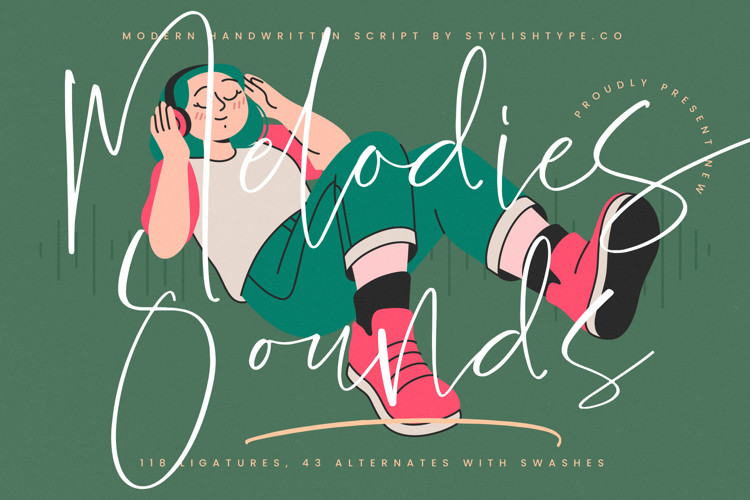
Melodies Sounds - Modern Handwritten Script
Melodies Sounds is a modern handwritten script that blends fluid elegance with a casual, authentic handwritten charm. Designed with smooth strokes, expressive ligatures, and versatile alternates, this font is ideal for projects that need to feel artistic, stylish, and approachable. Featuring 118 ligatures and 43 alternates with swashes, Melodies Sounds gives designers the creative flexibility to craft and dynamic lettering.
This typeface is excellent for branding. Perfect for logos, creative agencies, lifestyle products, music merchandise, and monograms, Melodies Sounds communicates uniqueness and style. Its handwritten quality ensures that branding projects look authentic and engaging, ideal for modern and creative industries.
In editorial and publishing, Melodies Sounds adds a fresh and contemporary voice. Magazines, book covers, music posters, and event flyers benefit from its rhythmic flow and artistic edge. It creates editorial layouts that are visually striking yet readable, making it perfect for lifestyle, art, and culture publications.
For web typography, this modern script integrates seamlessly across blogs, websites, online portfolios, and social media content. Its smooth strokes and handwritten charm ensure that digital media projects feel , stylish, and professional, helping brands and creators connect with their audiences.
Melodies Sounds also works beautifully in advertising and marketing. From posters, promotional campaigns, product packaging, and business cards, it captures attention with its energetic and artistic vibe. It ensures advertising projects look bold, fresh, and creative, appealing to trend-focused audiences.
The font is also suitable for wedding and event stationery with a modern flair. Its graceful swashes and handwritten touch enhance invitations, greeting cards, signage, and keepsakes, giving them a stylish and intimate look.